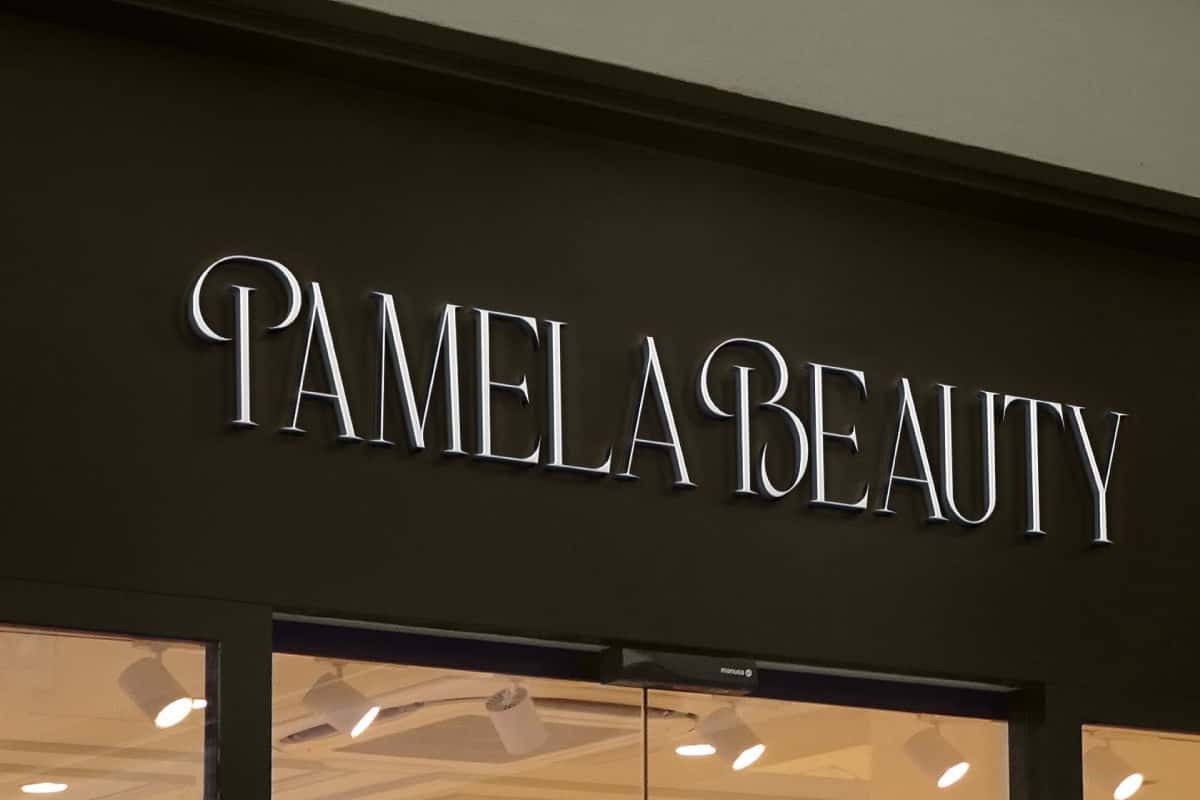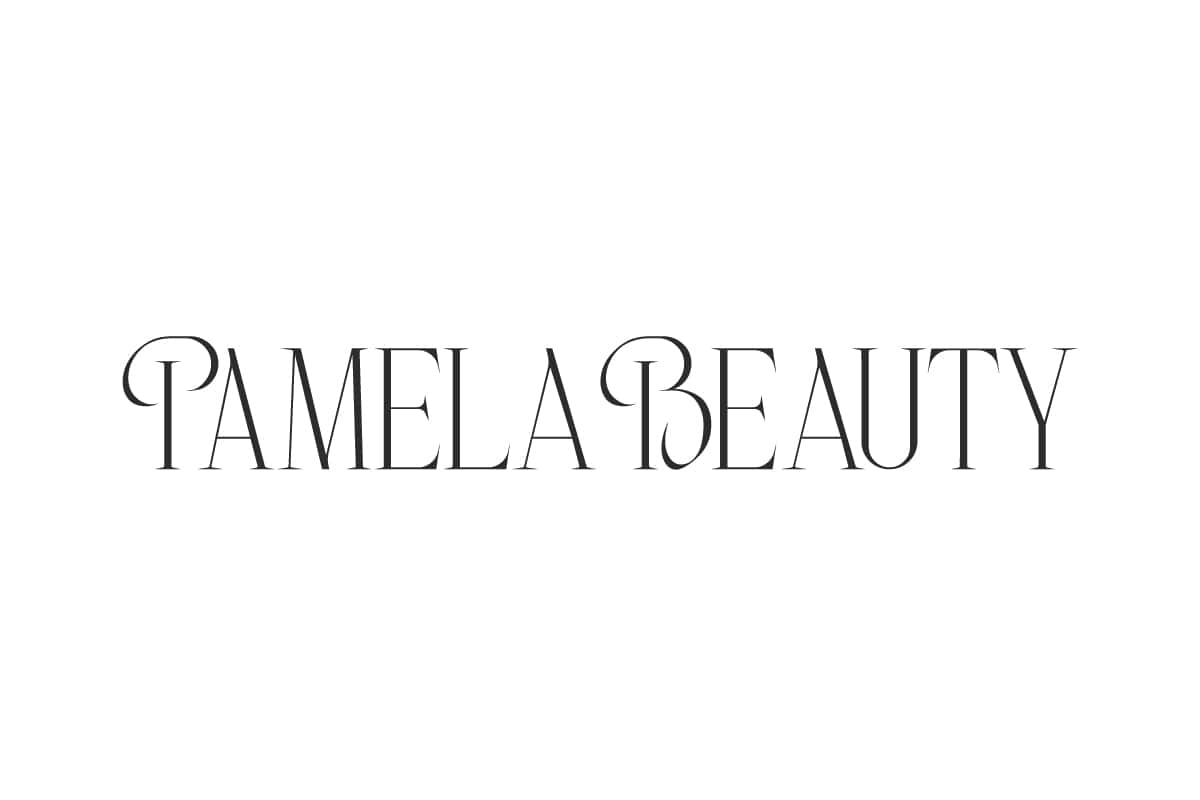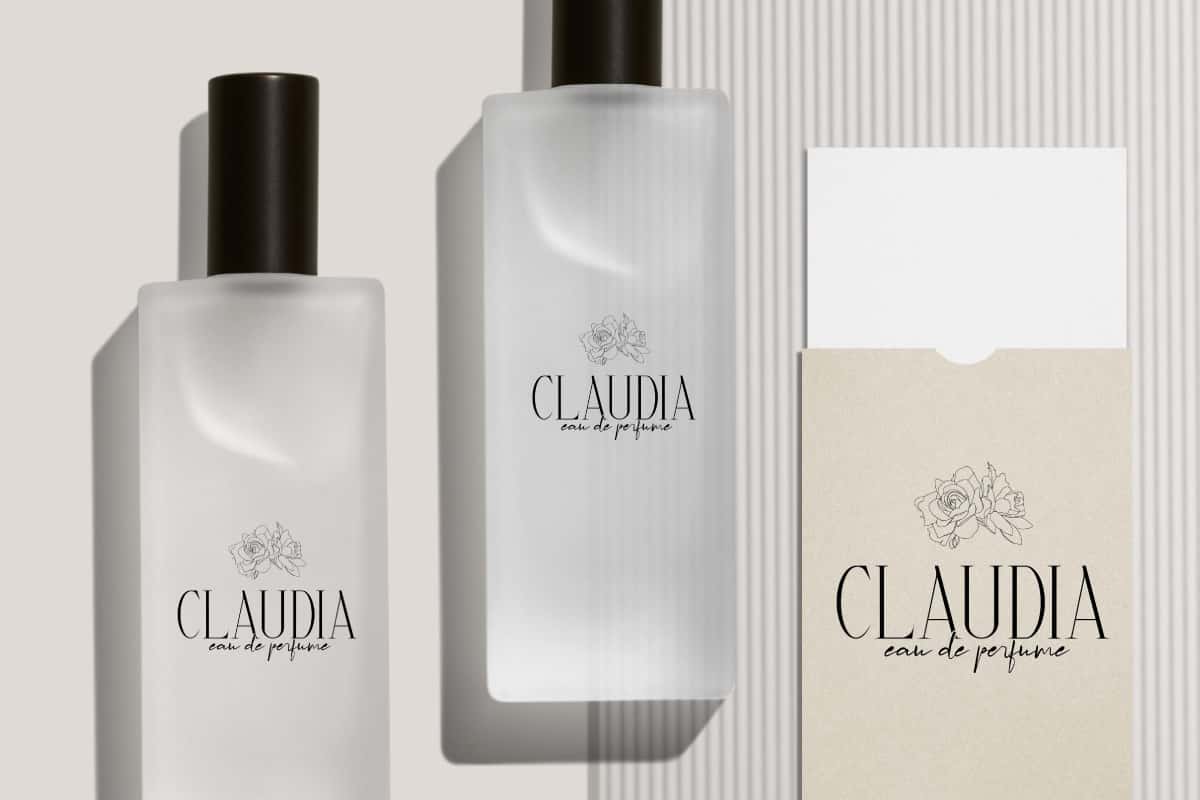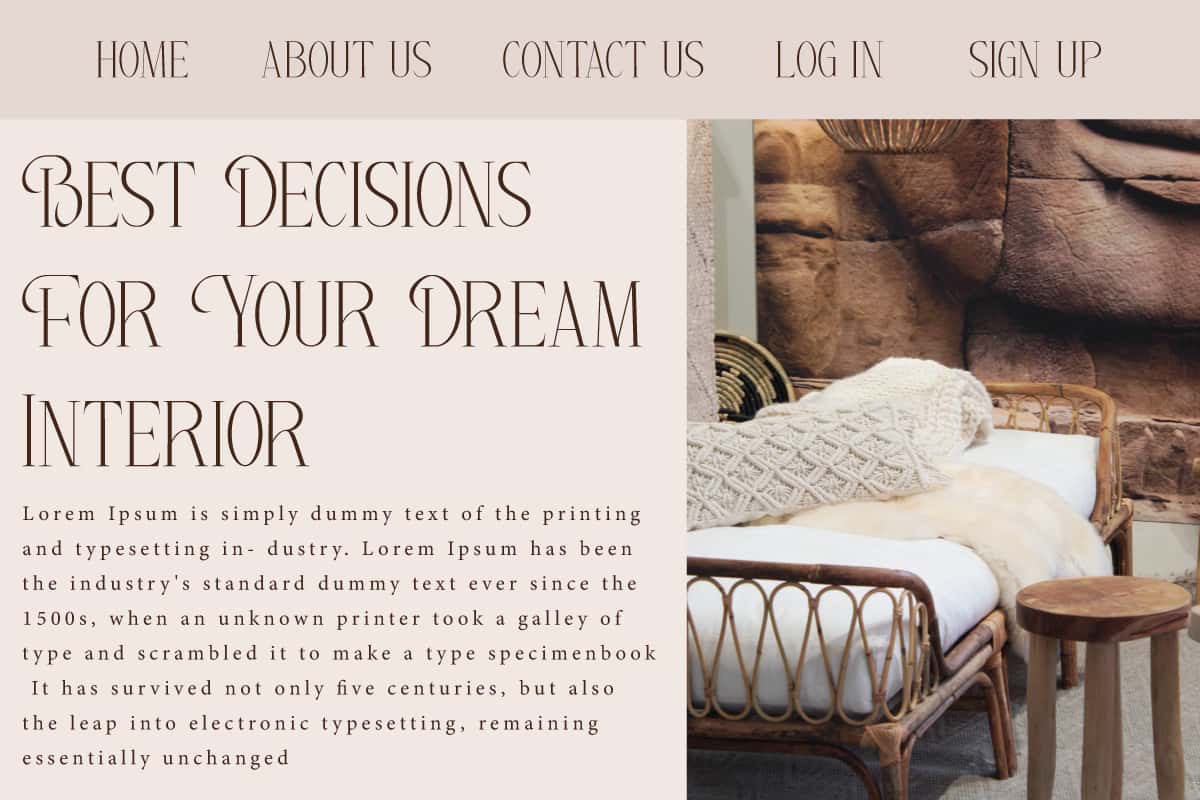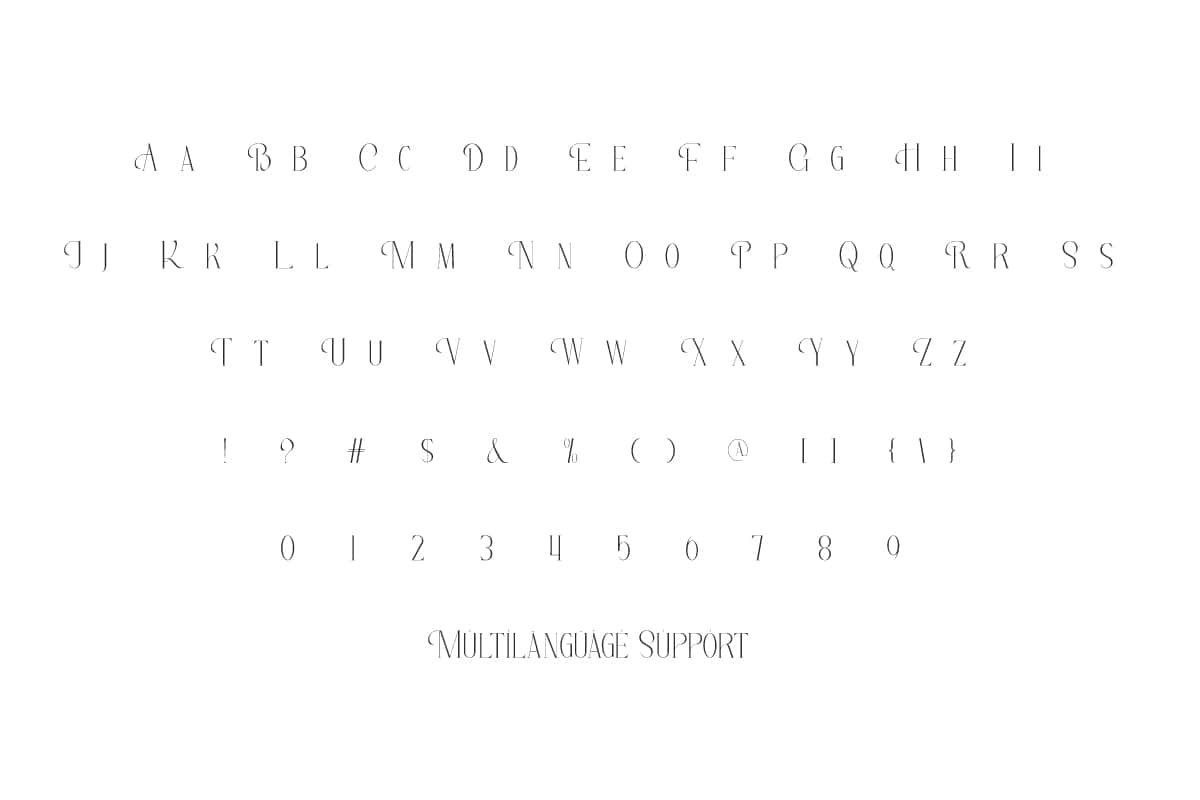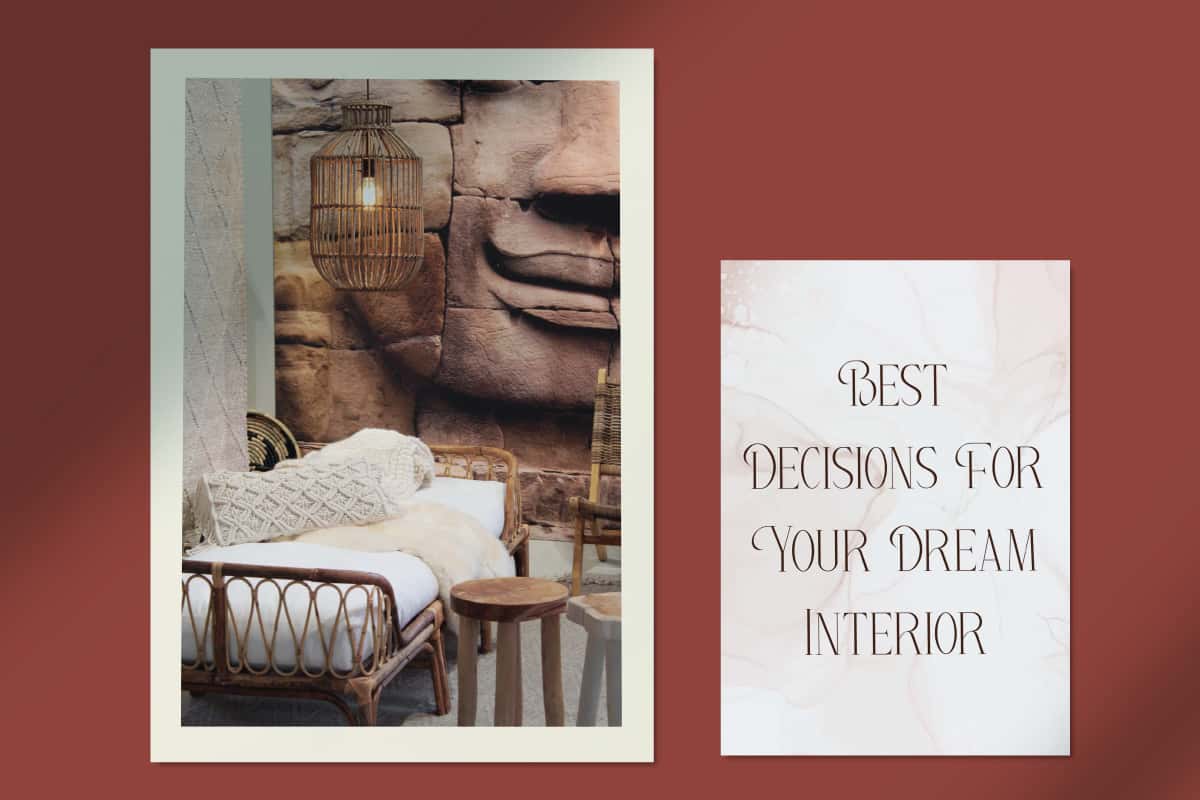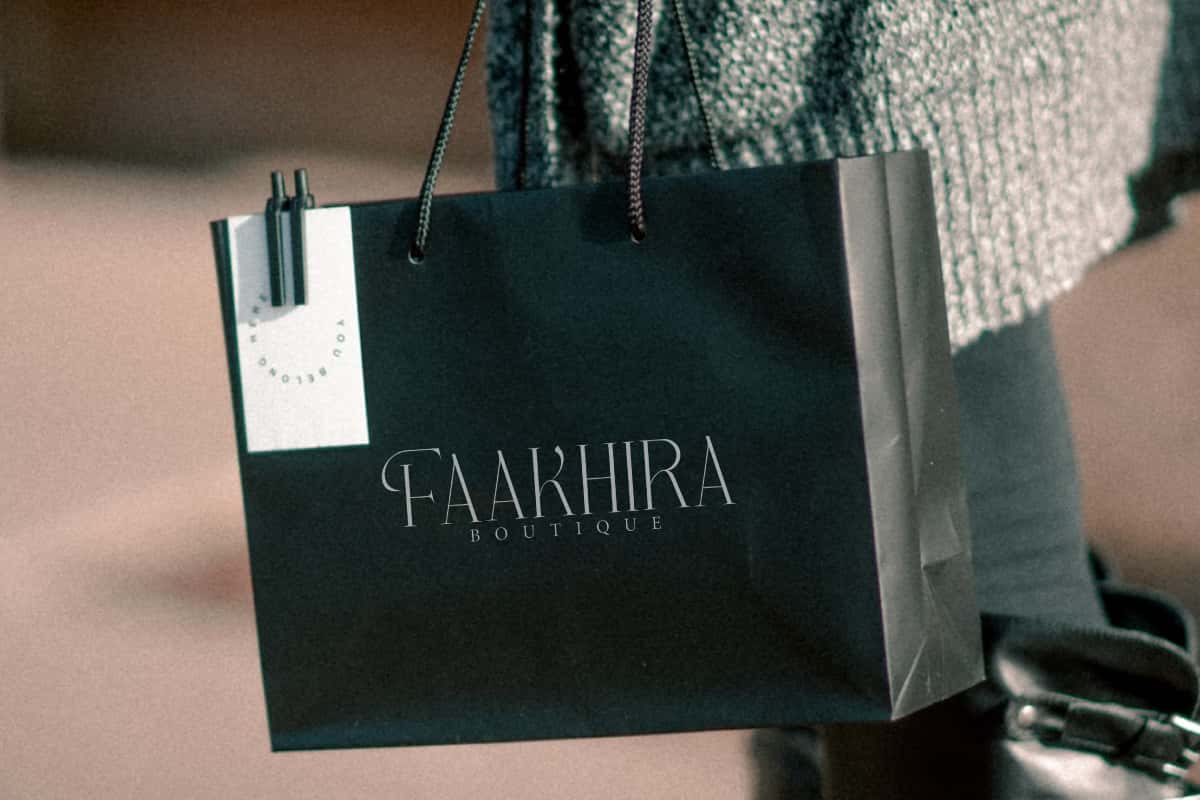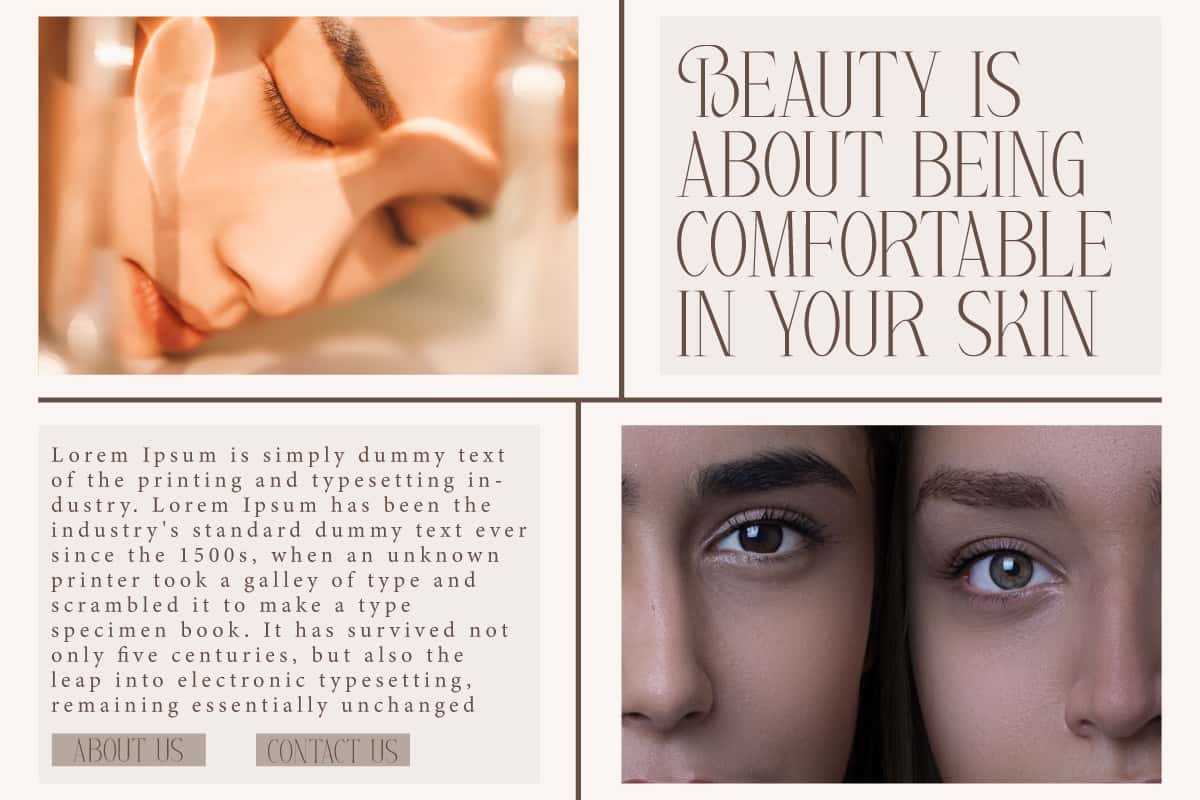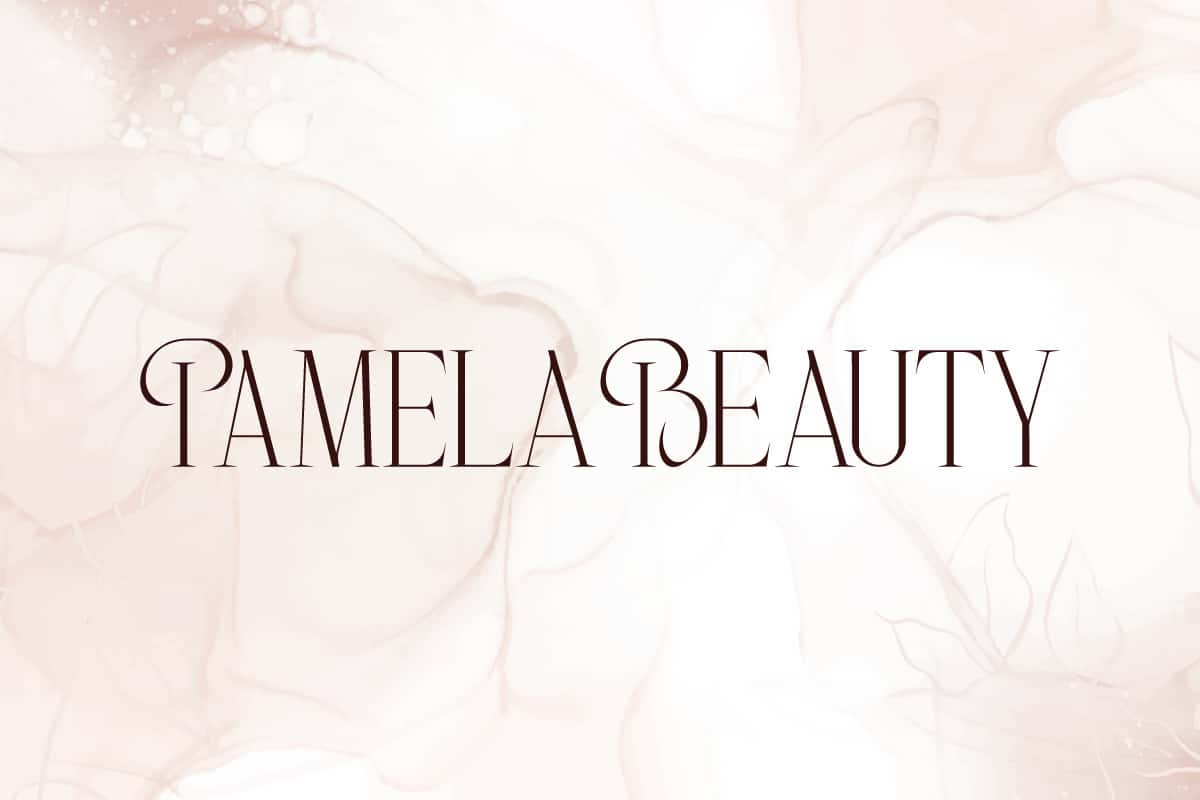
Pamela Beauty Font is a stunning serif display font that combines timeless elegance with a modern aesthetic. It will make anything stand out and feel stylish.
Pamela Beauty Font is a majestic serif display font with classic characters and distinctive curves that make it look so beautiful. Perfect for blogs, branding, brochure, covers, headline, invitation, labels, logos, magazine catalog, mockup, poster, product packaging, quotes, screen print, signage, stationery, template, title, website and many more.
Pamela Beauty Font includes full set of ALL CAPS for Uppercase and Lowercase Basic Characters with a slight difference, Numbers, Punctuation and Symbols. This font with a modern luxurious feel that fits perfectly to produce an aesthetic and quite feminine letter shape will be suitable for use for advertising, beauty clinic, boutique, cosmetic, fashion, florist, home furniture, interior design, skincare, spa salon, etc.